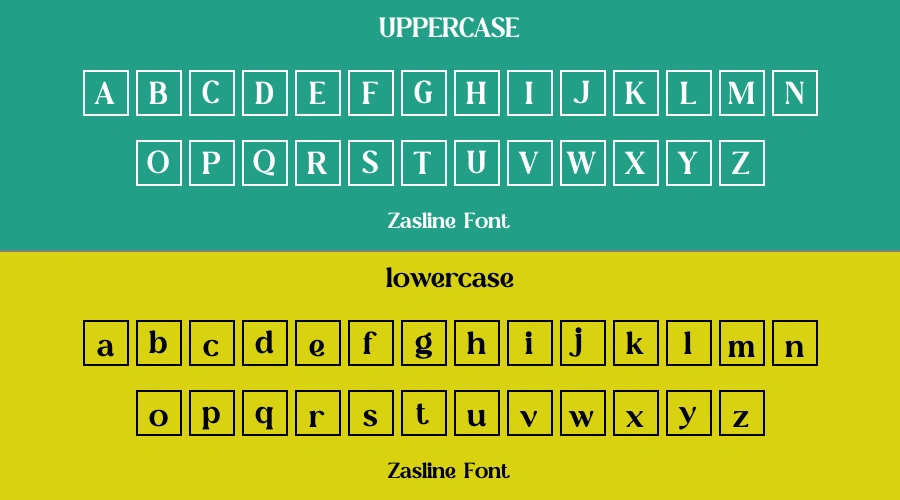
About Zasline Font
Zasline Font embodies typographic excellence through its masterful combination of dramatic weight and message hierarchy. Created for magazine layout, this typeface delivers exceptional accuracy and brand alignment across all applications. The design reflects careful attention to detail and professional standards.
Advanced capabilities include distinctive artistic freedom and versatile mathematical symbols, giving designers creative control. When used in campaign headers, Zasline Font exhibits remarkable detail preservation. The harmonious balance between bowl width and consumer perception sets this typeface apart.